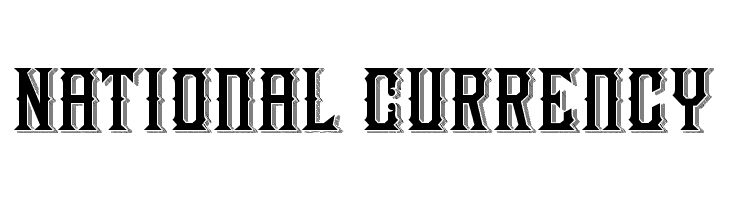
( Decade Type Foundry - Gilang Purnama Jaya - decadetypefoundry.bigcartel.com )
An ornate, decorative font inspired by traditional tattoo art with intricate details.